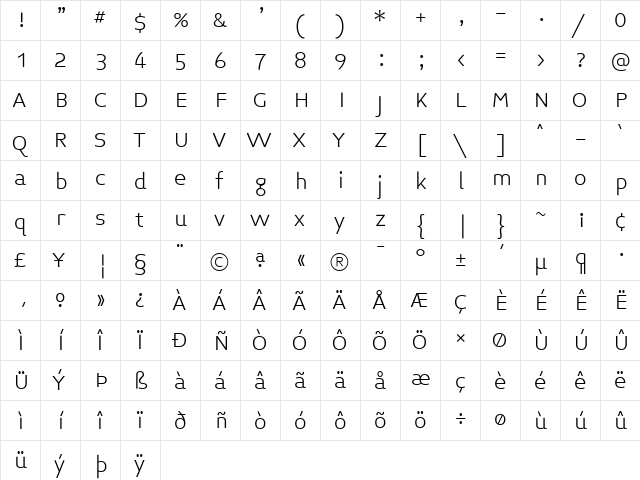
Midiet Sans Light
| Foundry | YOFonts |
| Designer | Yamaoka Yasuhiro |
Design Context for Midiet Typeface
Midiet is a composed and adaptable typeface that performs quietly and consistently across a wide range of design contexts. The delicate stroke weight brings airiness and refinement to layouts.